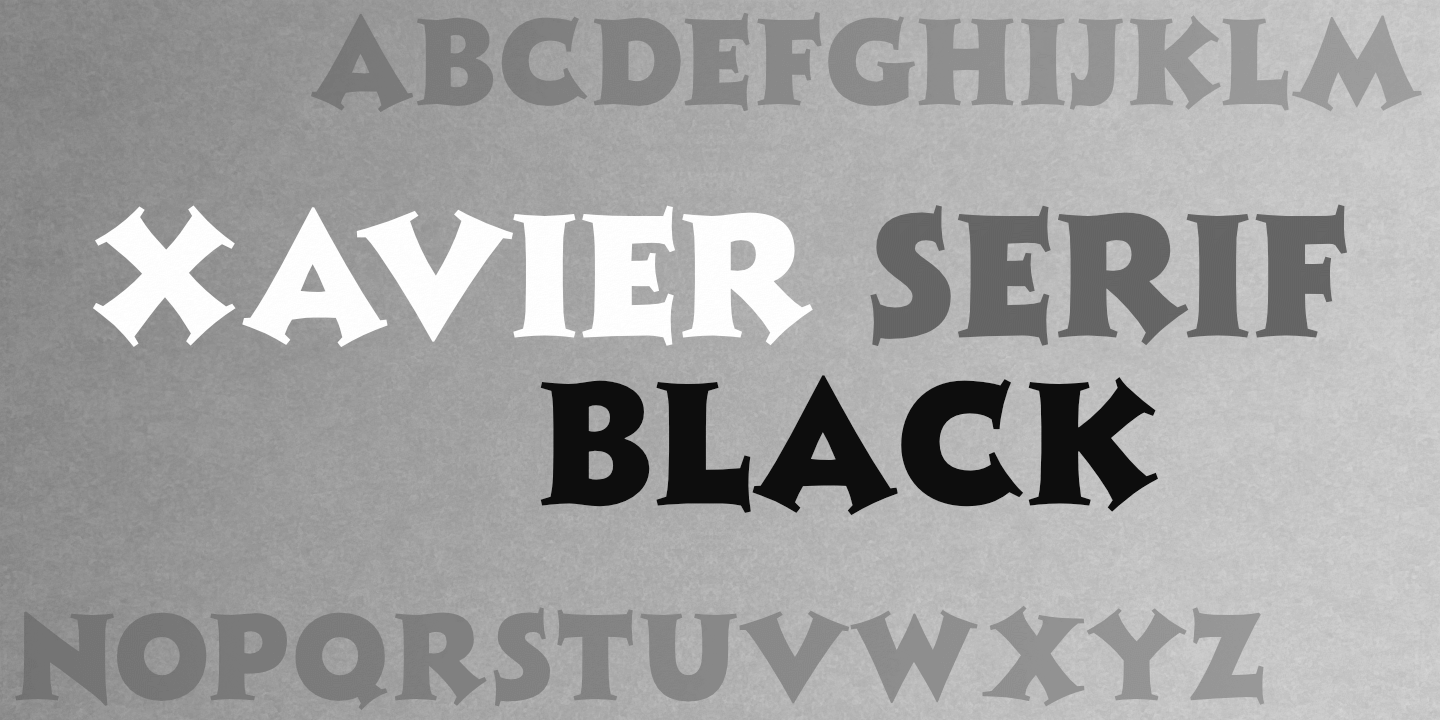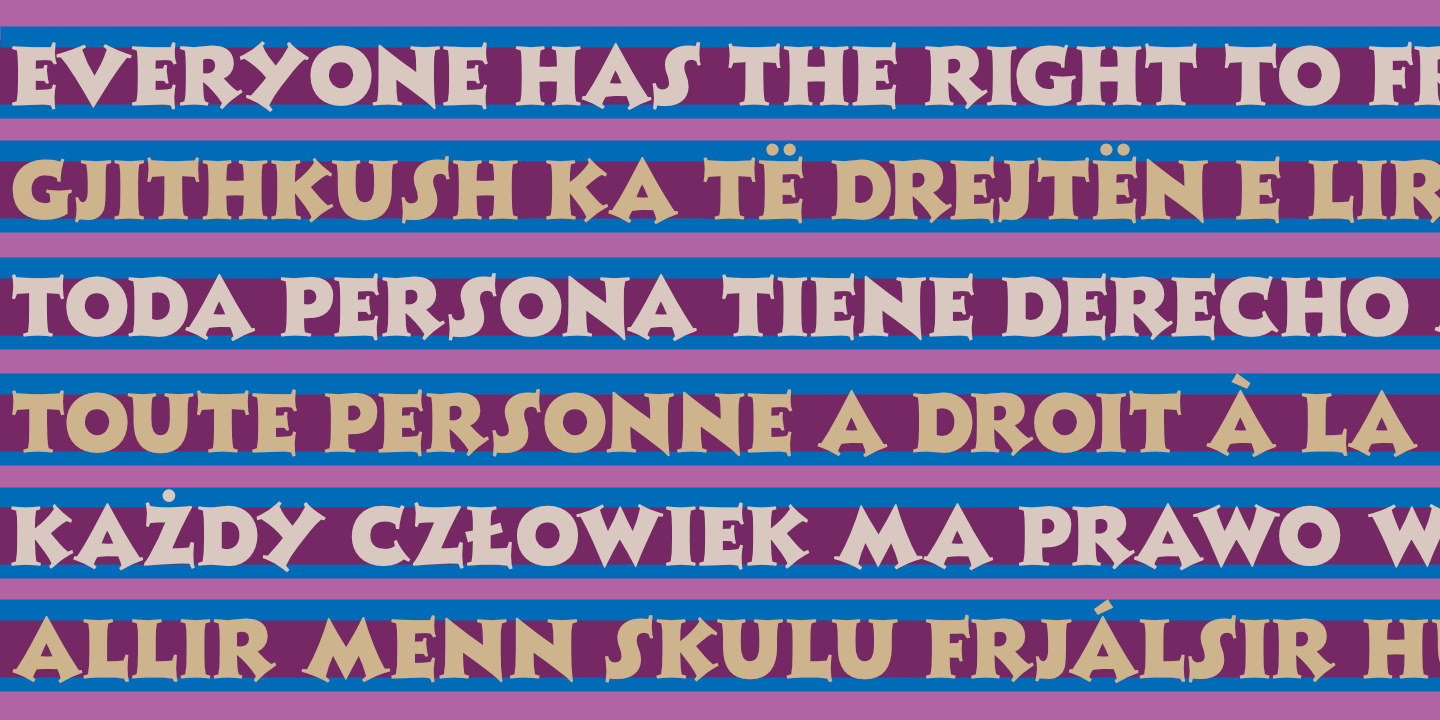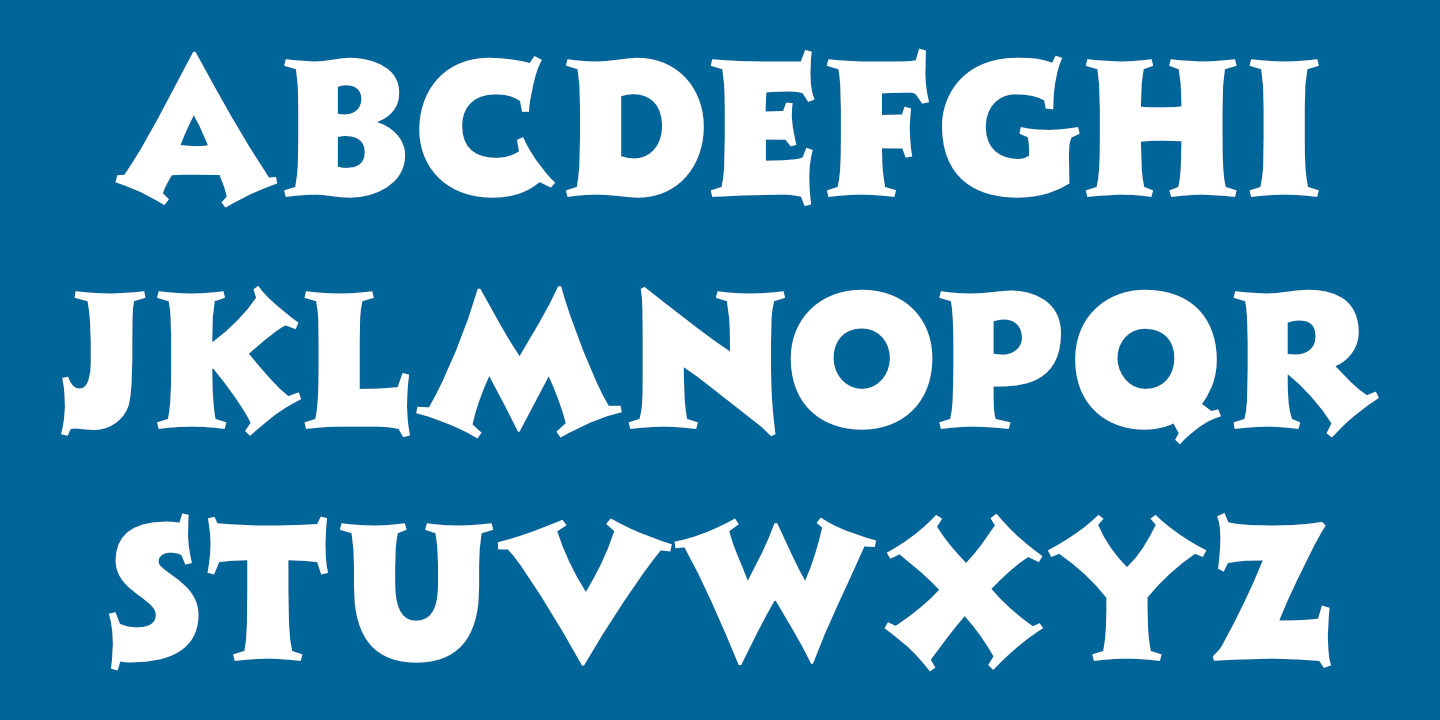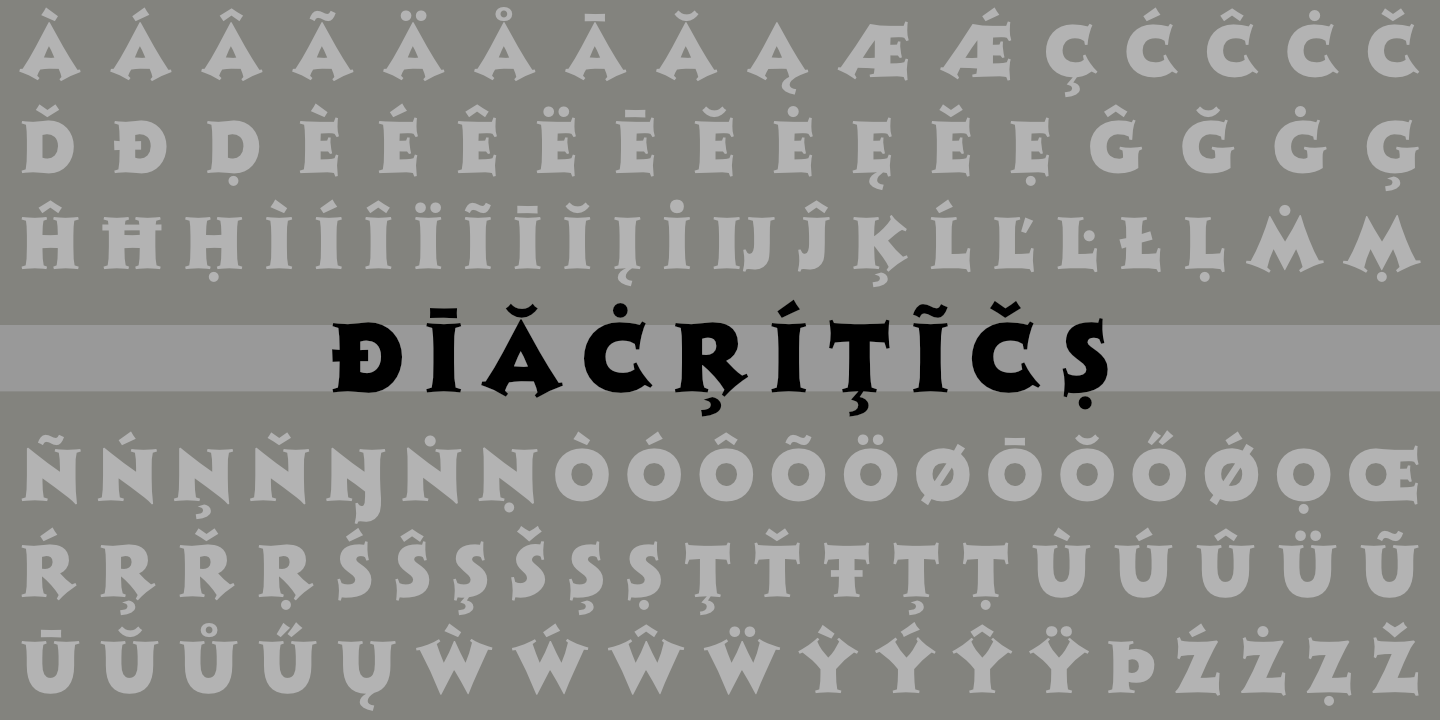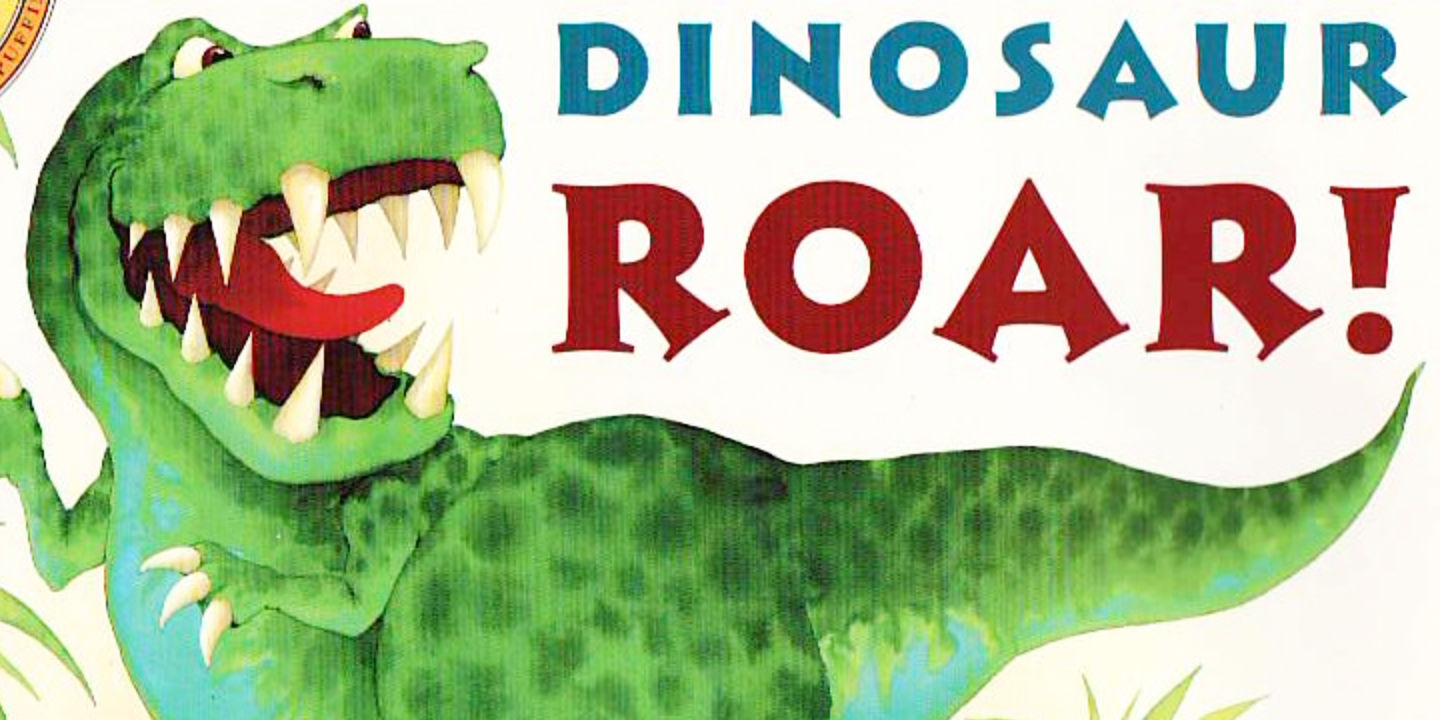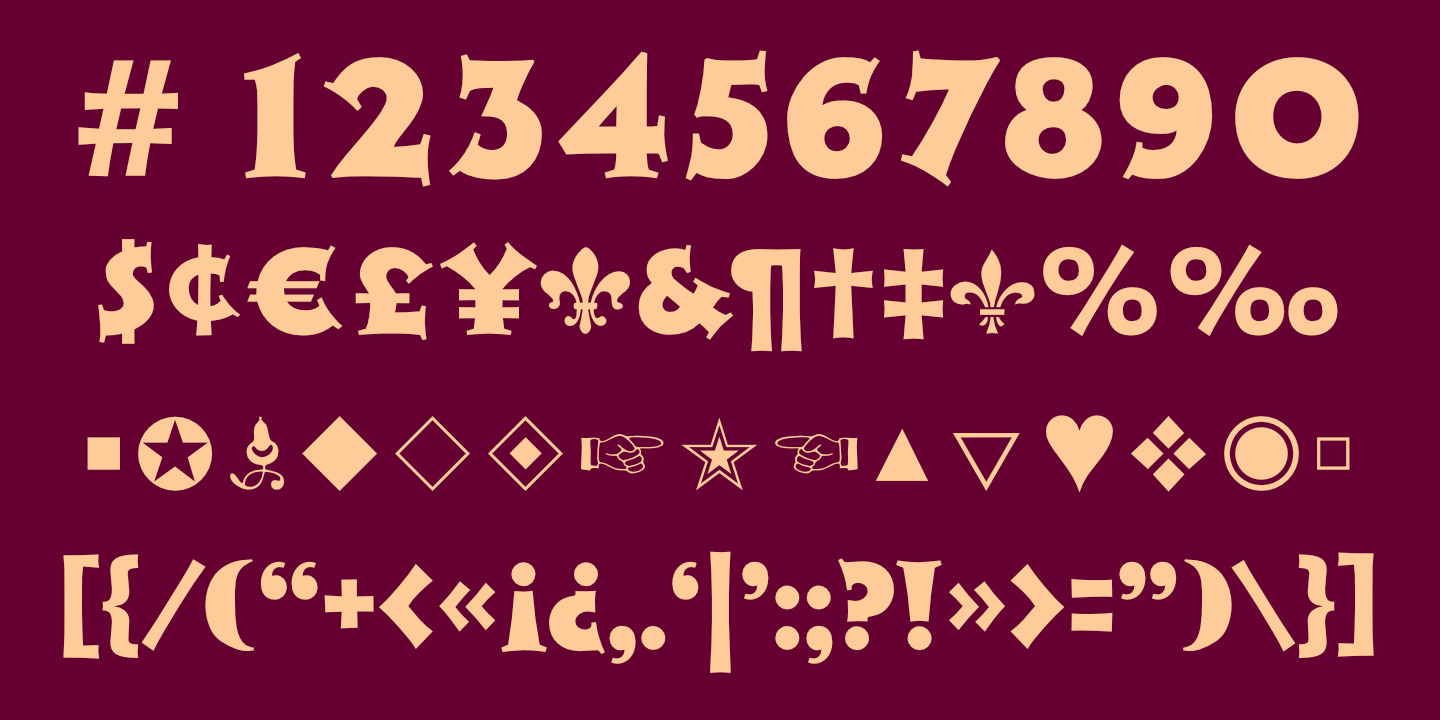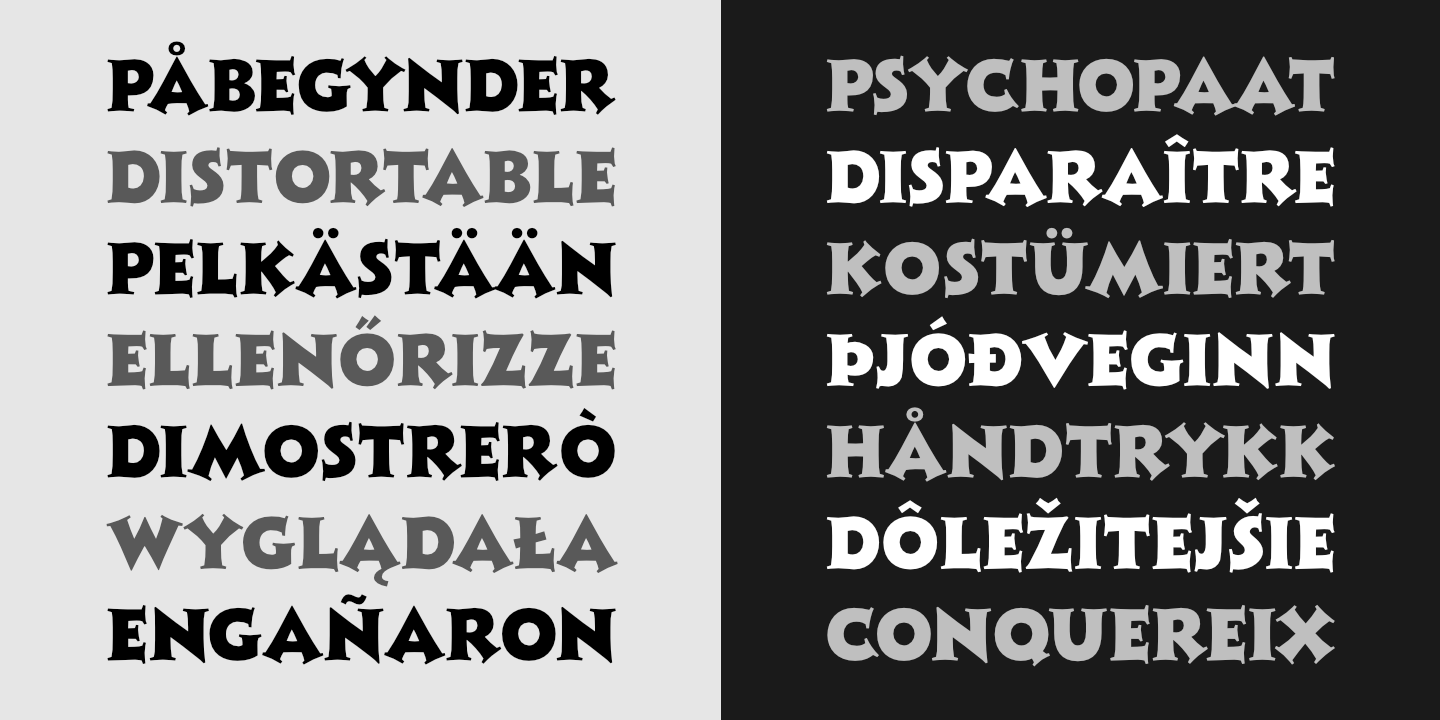
Xavier Serif Black: Basic Latin alphabet. See Glyphs for details.
Xavier Serif Black: Numerals, basic punctuation, currency symbols, and a sampling of ornaments.
Xavier Serif Black supports many European languages. Art deco style above, modern below.
Xavier Serif Black (and Xavier Sans Black) as used in Paul Strickland's wonderful children's book, Dinosaur Roar!